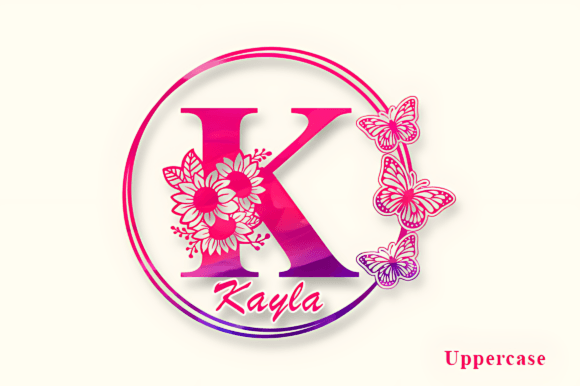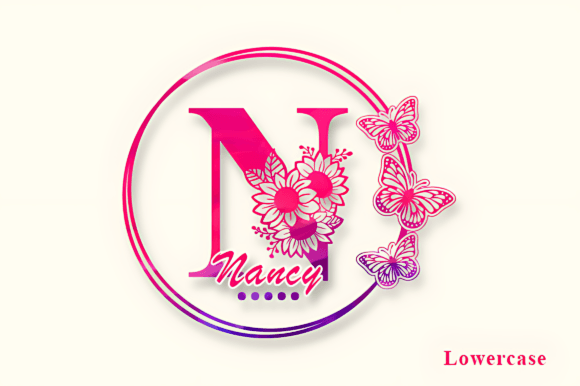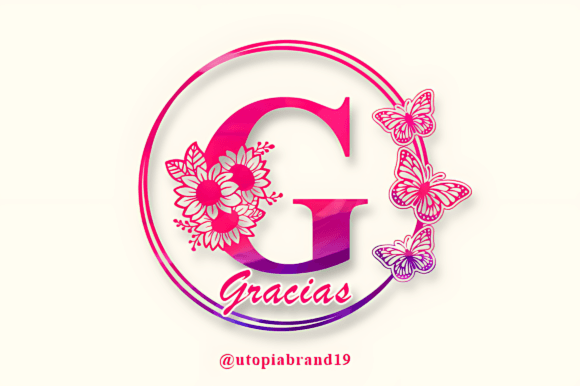
Introducing Bonnie Flower Monogram Font: Elevate Your Designs with Elegance and Nature
In the world of typography, few fonts capture the essence of elegance and nature as beautifully as the Bonnie Flower Monogram Font. This stunning font features decorative letters adorned with floral designs, making it an ideal choice for designers and crafters looking to add a charming and personal touch to their projects. Whether you’re working on invitations, cards, or any other creative endeavor, Bonnie Flower Monogram Font is sure to leave a lasting impression.
What Makes Bonnie Flower Monogram Font Special?
Bonnie Flower Monogram Font stands out from the rest due to its unique blend of elegance and natural beauty. Each letter in the font is meticulously shaped and surrounded by flowers, creating a fresh and lovely look that’s perfect for a variety of applications. The font’s design combines the sophistication of traditional typography with the whimsy of floral patterns, making it a versatile choice for both digital and print projects.
Key Features of Bonnie Flower Monogram Font
- Decorative Letters: Each letter in the Bonnie Flower Monogram Font is beautifully crafted with intricate floral designs, adding a touch of elegance to your text.
- Floral Patterns: The font features a range of floral patterns that surround each letter, creating a charming and whimsical effect.
- Elegant and Fresh: The combination of traditional typography and natural floral designs gives the font a fresh and lovely look that’s perfect for a variety of projects.
- Personal Touch: With Bonnie Flower Monogram Font, you can add a personal touch to your designs, making them stand out from the crowd.
Bonnie Flower Monogram Font is an excellent choice for designers and crafters who want to add a touch of elegance and nature to their projects. Whether you’re creating:
- Wedding Invitations: Use Bonnie Flower Monogram Font to create beautiful and elegant wedding invitations that set the tone for the big day.
- Greeting Cards: Add a personal touch to your greeting cards with this stunning font, making them perfect for special occasions.
- Stationery: Elevate your stationery designs with Bonnie Flower Monogram Font, creating a lasting impression on your clients or friends.
- Digital Art: Use this font to create stunning digital art pieces that showcase your creativity and attention to detail.
Tips for Using Bonnie Flower Monogram Font
To get the most out of Bonnie Flower Monogram Font, here are some tips to keep in mind:
- Pair with Simple Backgrounds: Let the font be the focal point by pairing it with simple backgrounds that don’t compete with the intricate designs.
- Experiment with Colors: Try out different color schemes to find the perfect combination that complements the font’s floral patterns.
- Use for Headlines and Titles: Bonnie Flower Monogram Font is perfect for headlines and titles, adding a touch of elegance and sophistication to your designs.
Bonnie Flower Monogram Font is a beautiful and elegant font that combines the sophistication of traditional typography with the whimsy of floral patterns. With its decorative letters and intricate designs, this font is perfect for designers and crafters looking to add a charming and personal touch to their projects. Whether you’re working on invitations, cards, or digital art, Bonnie Flower Monogram Font is sure to elevate your designs and leave a lasting impression.